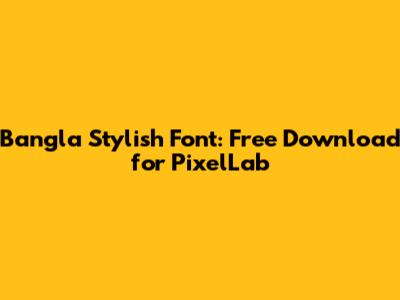
- Choose the Right Font for Your Project: Not all fonts are created equal. Consider the overall tone and style of your project when selecting a font. For example, a formal invitation might call for an elegant and sophisticated font, while a fun social media post might benefit from a more playful and quirky font. Don't be afraid to experiment with different fonts to see what works best.
- Pay Attention to Readability: While stylish fonts can add visual flair, it's important to ensure that your text remains readable. Avoid using fonts that are too decorative or intricate, especially for large blocks of text. Choose fonts with clear and well-defined letterforms to ensure that your message is easily understood.
- Consider Font Pairing: Font pairing is the art of combining different fonts to create a harmonious and visually appealing design. Try pairing a bold and eye-catching font for headlines with a more simple and legible font for body text. Use contrasting fonts to create visual interest and hierarchy.
- Use Colors and Effects Wisely: Colors and effects can enhance the impact of your fonts, but it's important to use them judiciously. Avoid using too many colors or overly distracting effects, as this can detract from the readability of your text. Stick to a limited color palette and use effects sparingly to add subtle emphasis.
- Experiment with Different Styles: Don't be afraid to experiment with different font styles, such as bold, italic, and condensed. These styles can help you create visual hierarchy and add emphasis to important words or phrases. Just be sure to use styles consistently throughout your design to maintain a cohesive look.
- Font Not Showing Up in PixelLab: If you've installed a font but it's not showing up in PixelLab, make sure you've placed the font file in the correct folder (